In the world of digital design, clean digital clock fonts have become an essential element, especially in projects that require precise time displays, alarm clocks, or electronic displays. These fonts bring a techno font style, offering a modern aesthetic that works seamlessly across a variety of applications. Whatever you’re creating, choosing the right font is crucial. Let’s explore how digital clock fonts can enhance your work.
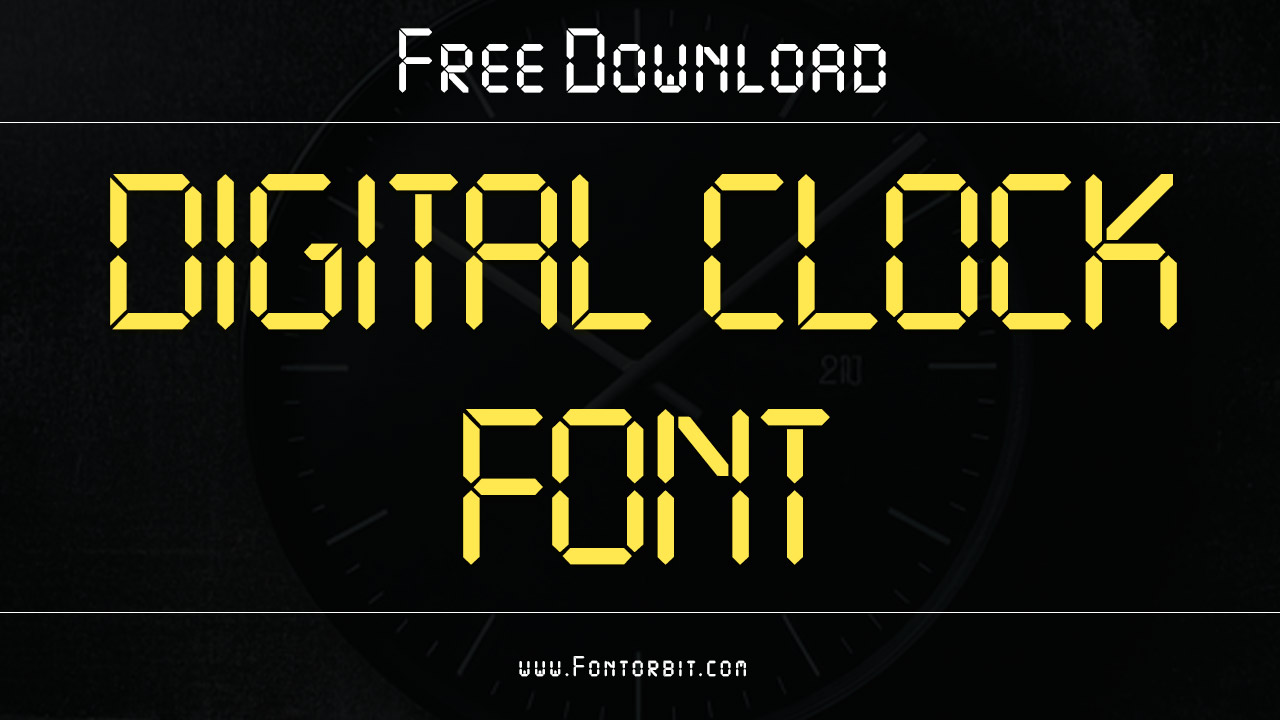
Why Use Digital Clock Fonts?
Digital clock fonts mimic the numbers displayed on digital clocks, displays, and digital watches. They typically feature clean lines and sharp edges that ensure readability even from a distance. The precision and clarity these fonts offer are ideal for creating countdown timers, time clocks, and other tech-themed designs. These fonts also enhance the style and character of your project, whether it’s a project or a website.
A digital display can convey both functionality and aesthetic appeal when paired with the right font. They allow for seamless integration of numbers, letters, and symbols in your design. Digital clock fonts are common in alarm clocks, timer settings, and clock faces. They offer an easy-to-read layout and enhance efficiency.
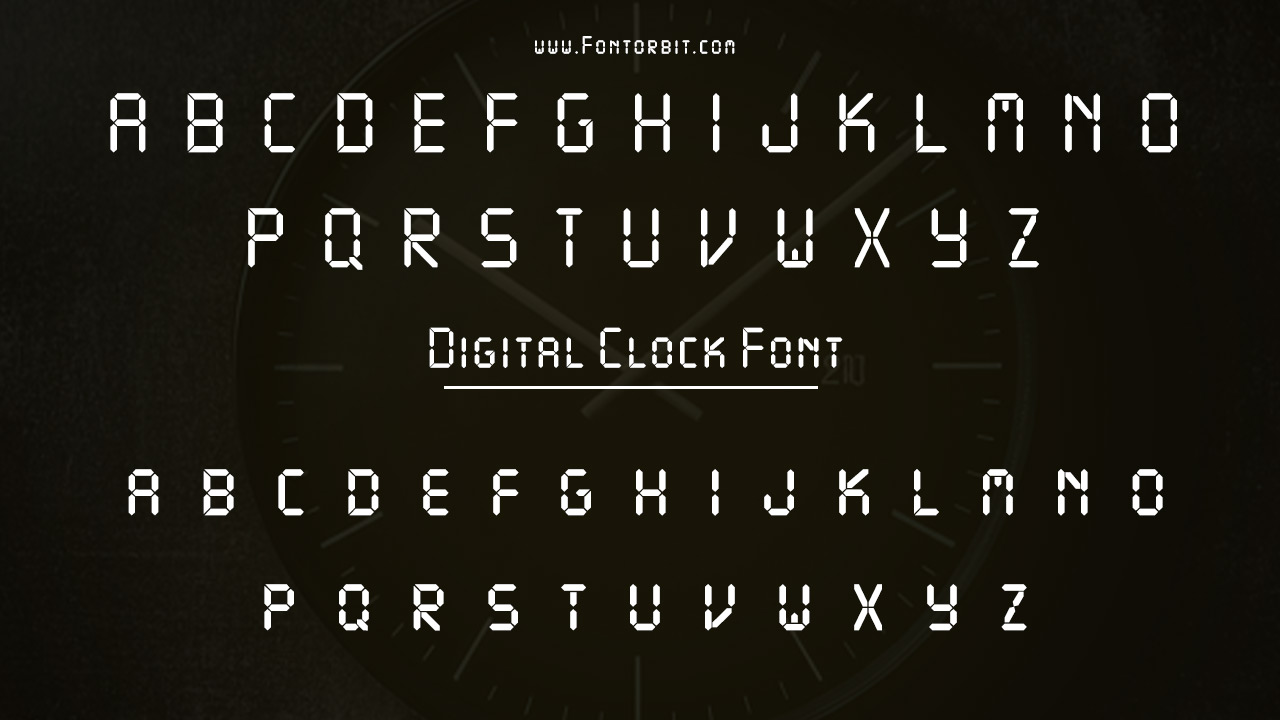
The Importance Of Readability
In the fast-paced world of technology, readability is paramount. Designers craft digital clock fonts with capital letters to make them easily distinguishable. This allows users to interpret the text instantly.
Whether you’re designing a timer for a countdown, creating a digital clock number display, or customizing a background for your website, a font that’s versatile and clear makes all the difference.
For graphic designers, original design is essential, and a well-chosen font can play a critical role in defining the style of the project. Many designers opt for digital clock fonts because they add a nostalgia factor while maintaining a modern touch. From symbols to alphabet letters, these fonts are crafted to maintain clarity and precision, even when they are used for intricate applications like password entry systems.
Choosing The Right Digital Clock Font For Your Project
When selecting a digital clock font for your project, there are several factors to consider, including:
- Applications: Determine the purpose of the font. Are you creating a digital number display, a countdown timer, or a time clock? Knowing the function of the display helps you choose a font that’s tailored to your needs.
- Font Style: Different digital clock fonts come in various styles, from traditional LCD displays to more futuristic designs. Depending on the style of your project, choose a font that complements the overall design and theme.
- Font Readability: Ensure that the font you choose is easy to read at a glance, especially if it will be used for timers, alarms, or clock faces. A font with clear, distinct numbers and letters enhances the user experience.
- Versatility: Opt for a versatile font that can be applied across different applications. Whether it’s a digital clock, a timer, or a password field, the font should remain consistent across various formats.
- Aesthetic Appeal: While readability is essential, the font’s design should also reflect the techno or electronic display feel of your project. The right font can elevate the overall style of your work, making it both functional and visually appealing.
Top Digital Clock Fonts For Professional Use
- DS-Digital: This classic digital clock font is widely used for its clean, sharp edges and legibility. Ideal for projects requiring timer displays or digital watch designs.
- VFD Nova: A futuristic techno font that’s perfect for tech-themed designs and countdown timers. This font stands out in digital displays, providing both style and functionality.
- E 1234: A popular digital display font, offering precision and clarity for projects involving digital numbers or alarm clocks.
- Alfabilder: This electronic display font is versatile enough for website designs and can be used in a wide range of applications, from time clocks to password entry systems.
- VFD Hypernova: A bold and clean digital clock font that offers a modern touch while ensuring readability in timer and countdown applications.
Where To Use Digital Clock Fonts
- Websites: Digital clock fonts are ideal for websites that require time-based functions, such as live countdown timers or digital clock faces.
- Design Projects: Whether it’s for an alarm clock app or a timer, a digital clock font can help enhance the user experience while maintaining style and clarity.
- Electronic Displays: In electronic display projects, digital fonts provide an easy-to-read format for users to interpret time or numbers quickly.
- Personal Projects: Use digital fonts in creative applications, such as custom digital watches, or to add a nostalgic touch to your design.
1.What Is A Digital Clock Font?
A digital clock font mimics the display style of a digital clock, featuring clear, segmented numbers and letters for easy readability, often used for timers, alarms, and digital displays.
2.Where Can I Use Digital Clock Fonts?
Digital clock fonts are perfect for applications like digital watches, alarm clocks, timer displays, and websites requiring time-based functions.
3.How Do I Choose The Right Digital Clock Font?
Consider factors like readability, versatility, style, and application. Choose a font that enhances the clarity and aesthetic appeal of your project.
5.Can Digital Clock Fonts Be Used In Graphic Design?
Yes, digital clock fonts are widely used in graphic design, especially for tech-themed designs, websites, and electronic displays.